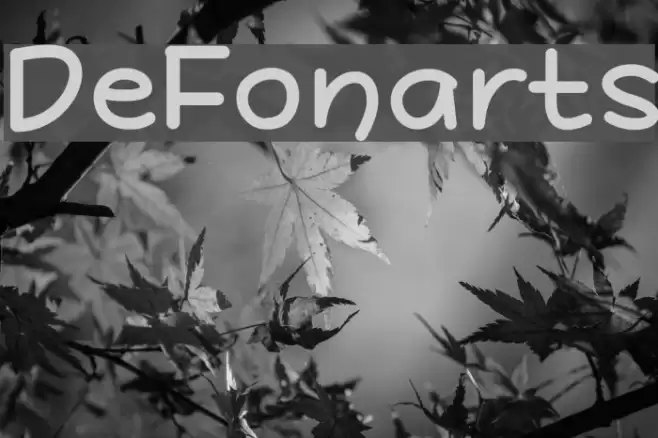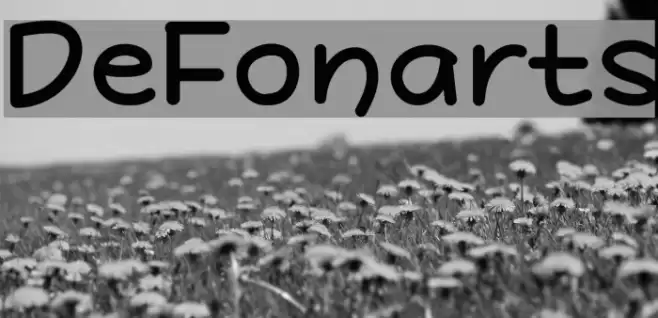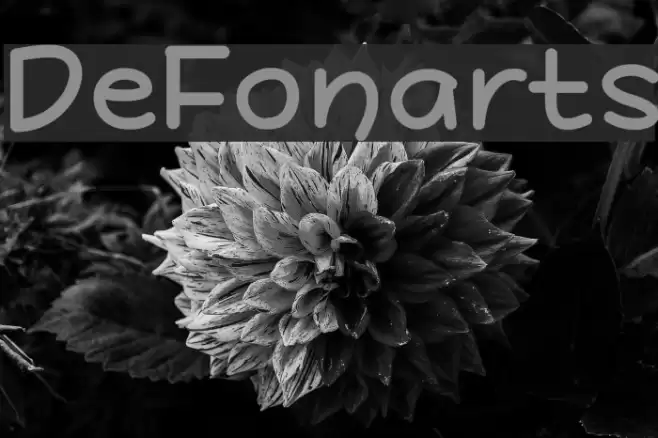
DeFonarts Font
DeFonarts Description
This playful and rounded font features a friendly and approachable style, characterized by its smooth curves and consistent stroke width. The letters are bold and slightly whimsical, giving off a casual and informal vibe. The uppercase and lowercase characters maintain a uniform appearance, while the numerals and special characters blend seamlessly with the overall design. The font's simplicity and clarity make it highly legible, suitable for a variety of applications where a lighthearted and engaging tone is desired.
A playful, rounded font with smooth curves and a friendly style from Uncategorized fonts.
- Proposed Projects: Ideal for children's books, playful branding, casual invitations, and educational materials.
- Overall Style: Playful
- Use Case: Headlines, Logos, Informal Texts